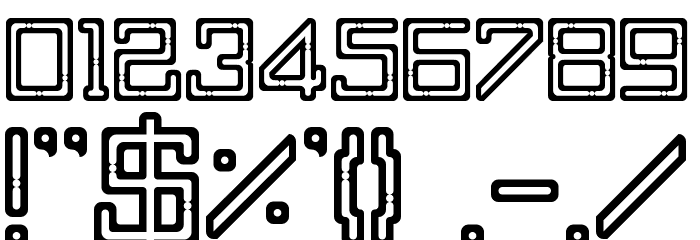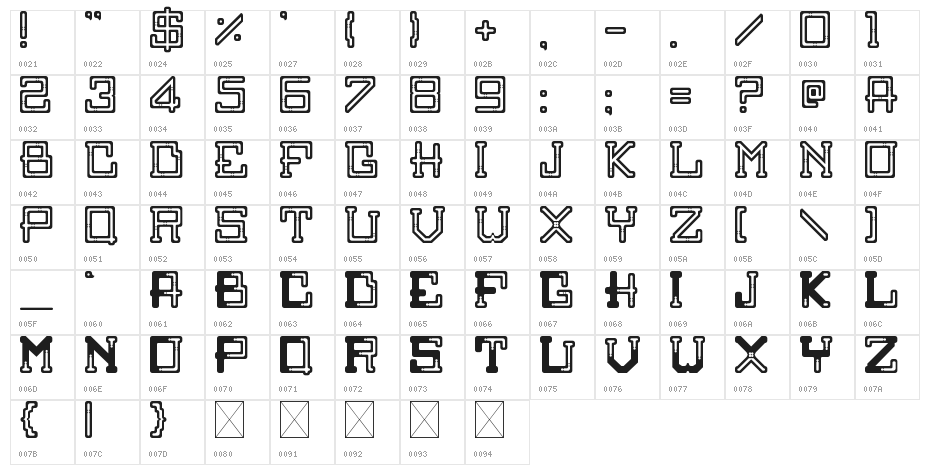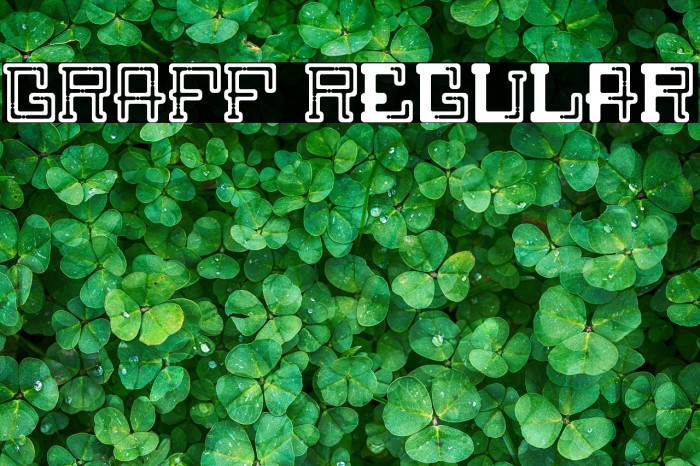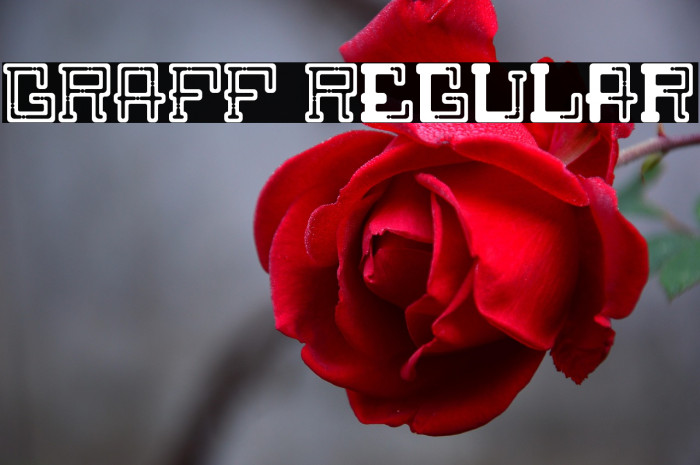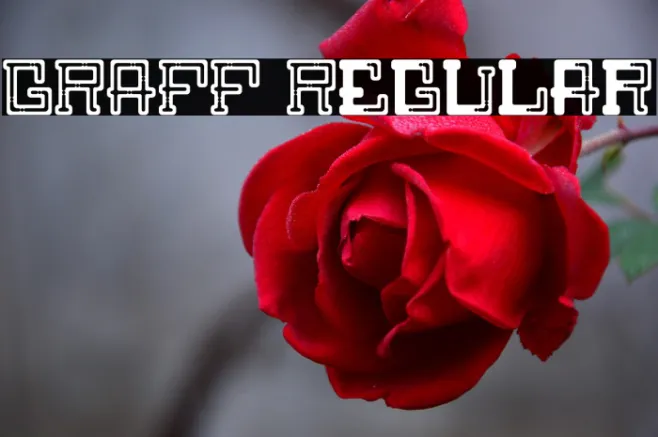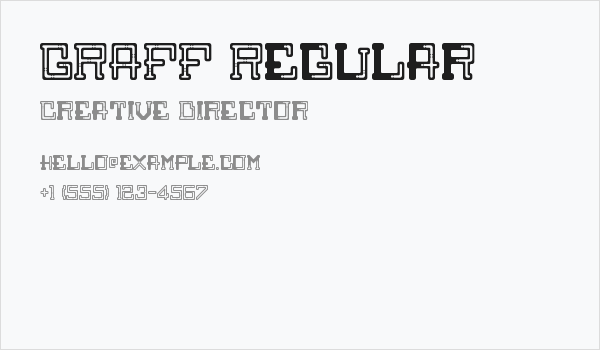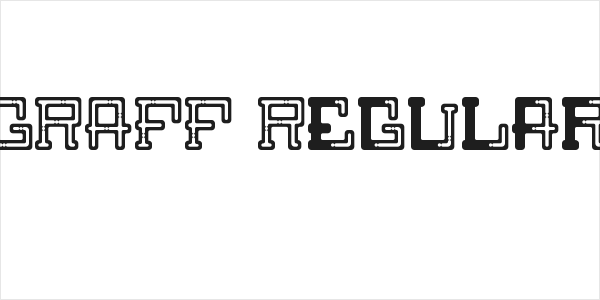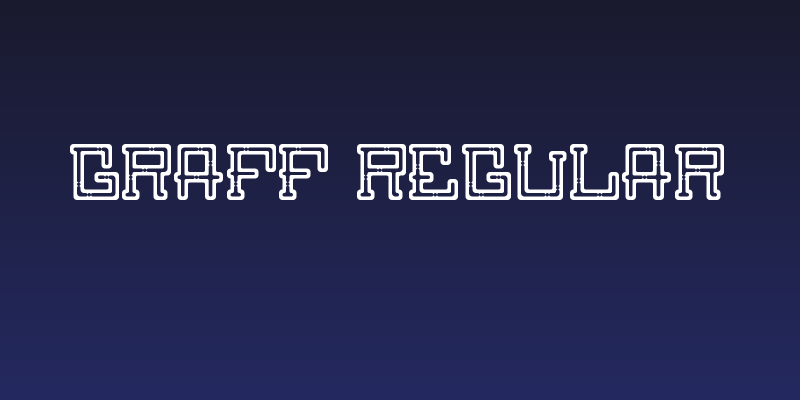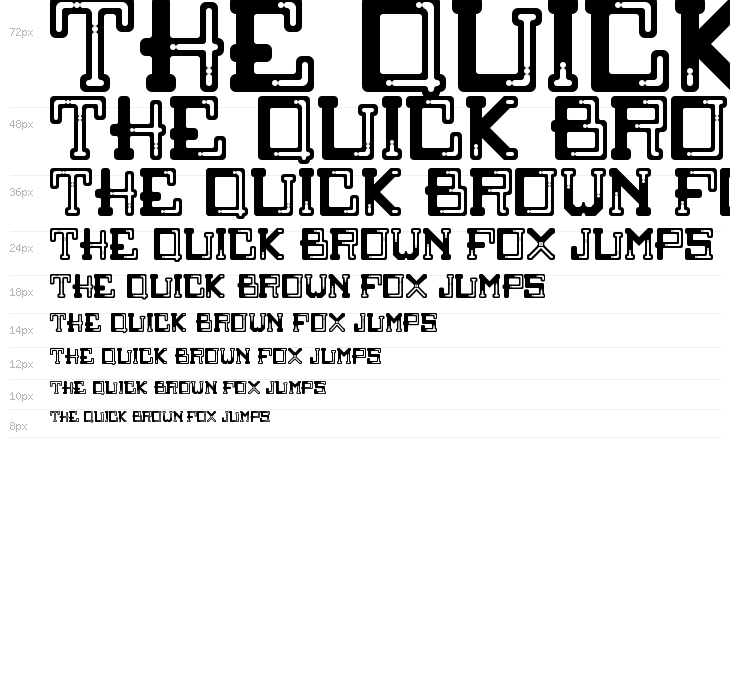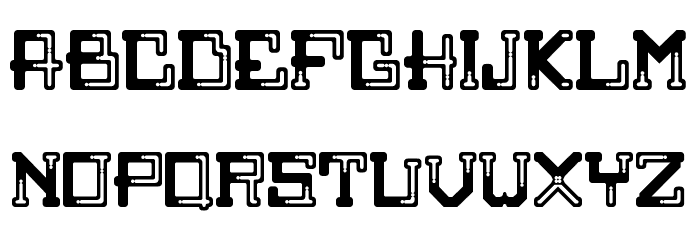
GRAFF Regular Font
GRAFF Regular Description
This font features a unique and bold design with a mechanical, industrial aesthetic. The characters are constructed with a combination of solid and outlined strokes, giving them a distinctive, almost stencil-like appearance. The uppercase letters are uniform in height and width, creating a strong, cohesive look. The numerals and special characters follow the same design principles, ensuring consistency across all glyphs. The font's style is reminiscent of technical drawings or blueprints, making it ideal for projects that require a futuristic or tech-inspired feel.
| Overall Style | Futuristic, Industrial |
| Proposed Projects | Ideal for tech-themed posters, video game graphics, industrial design projects, and futuristic branding. |